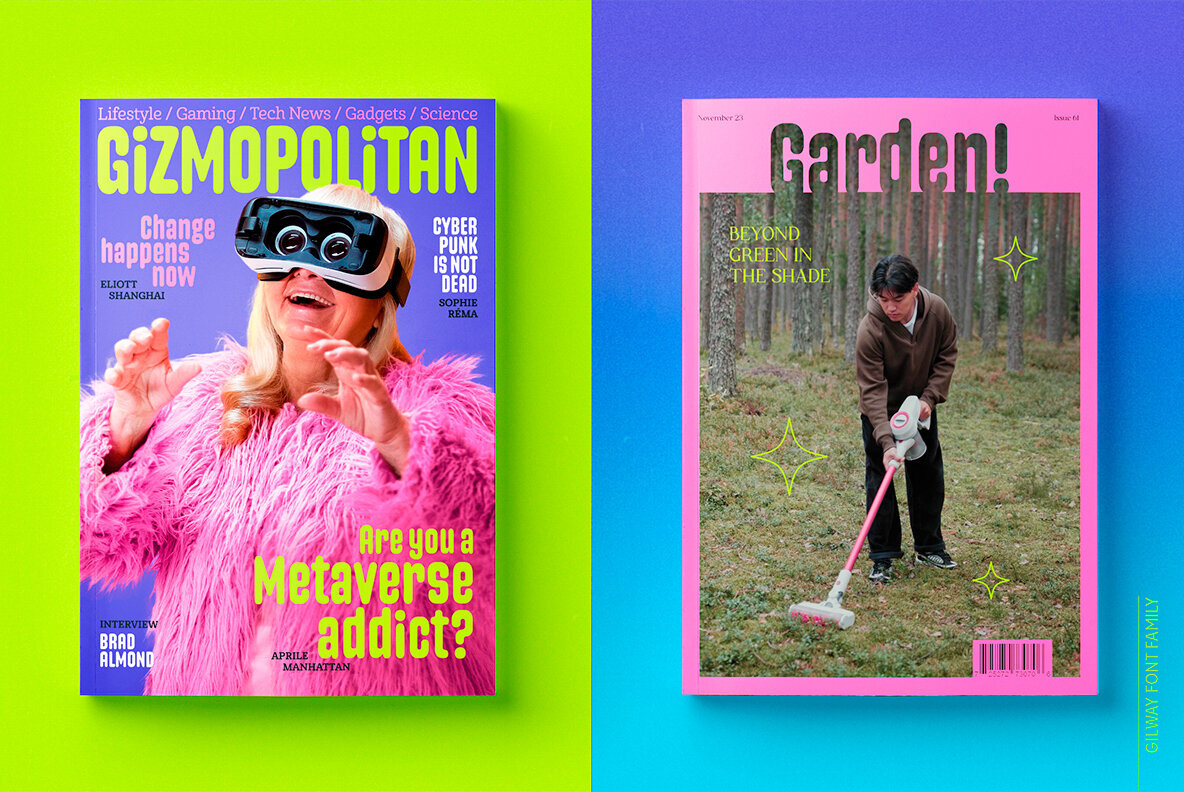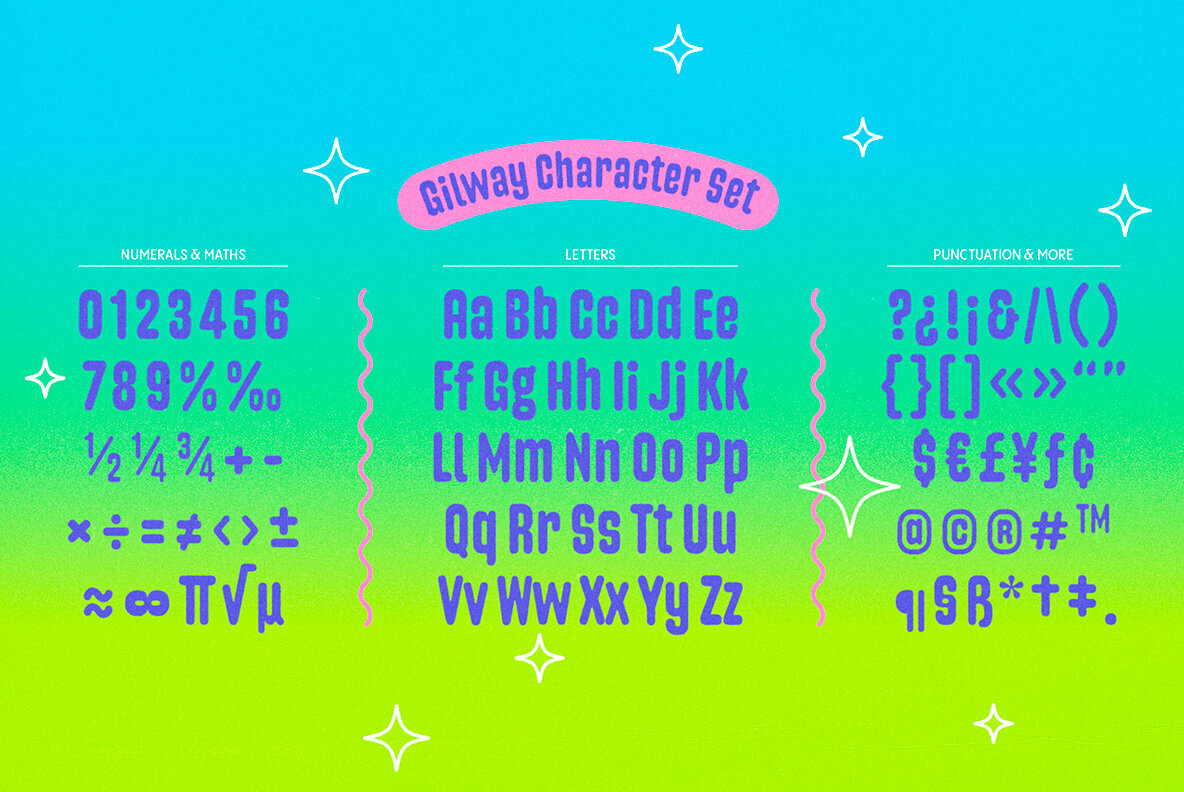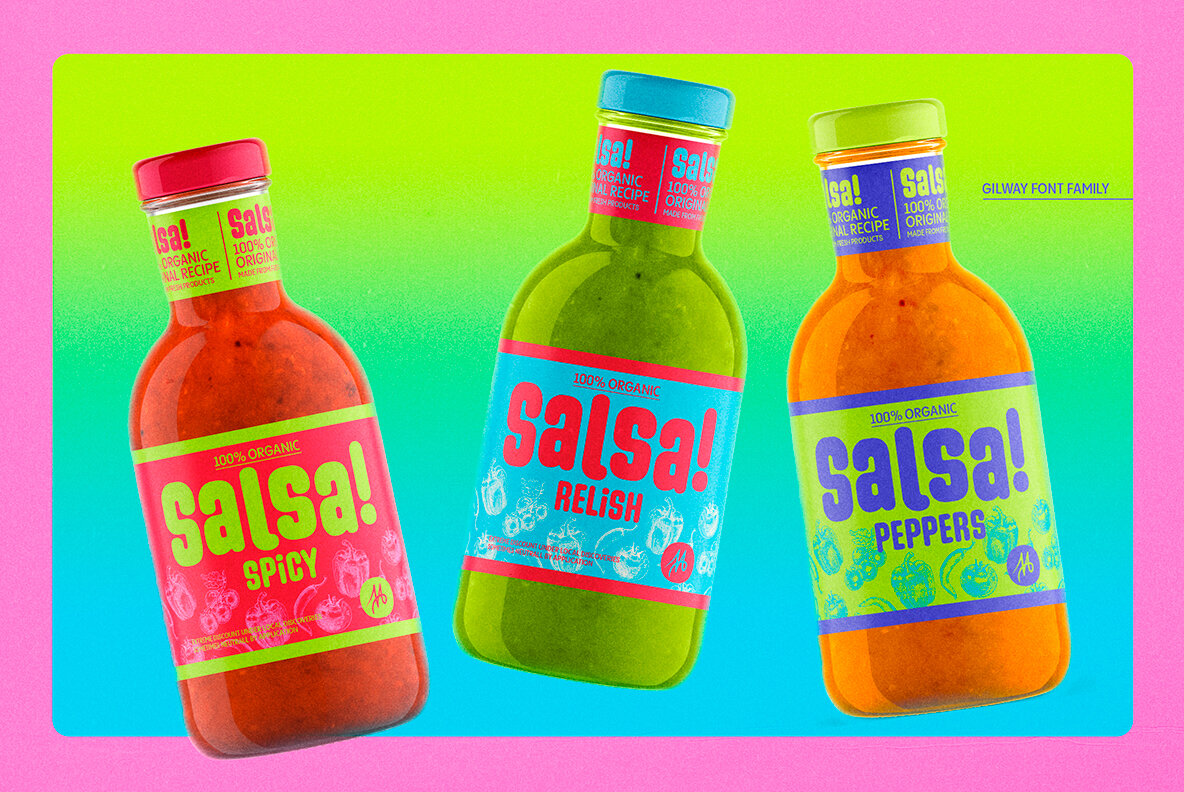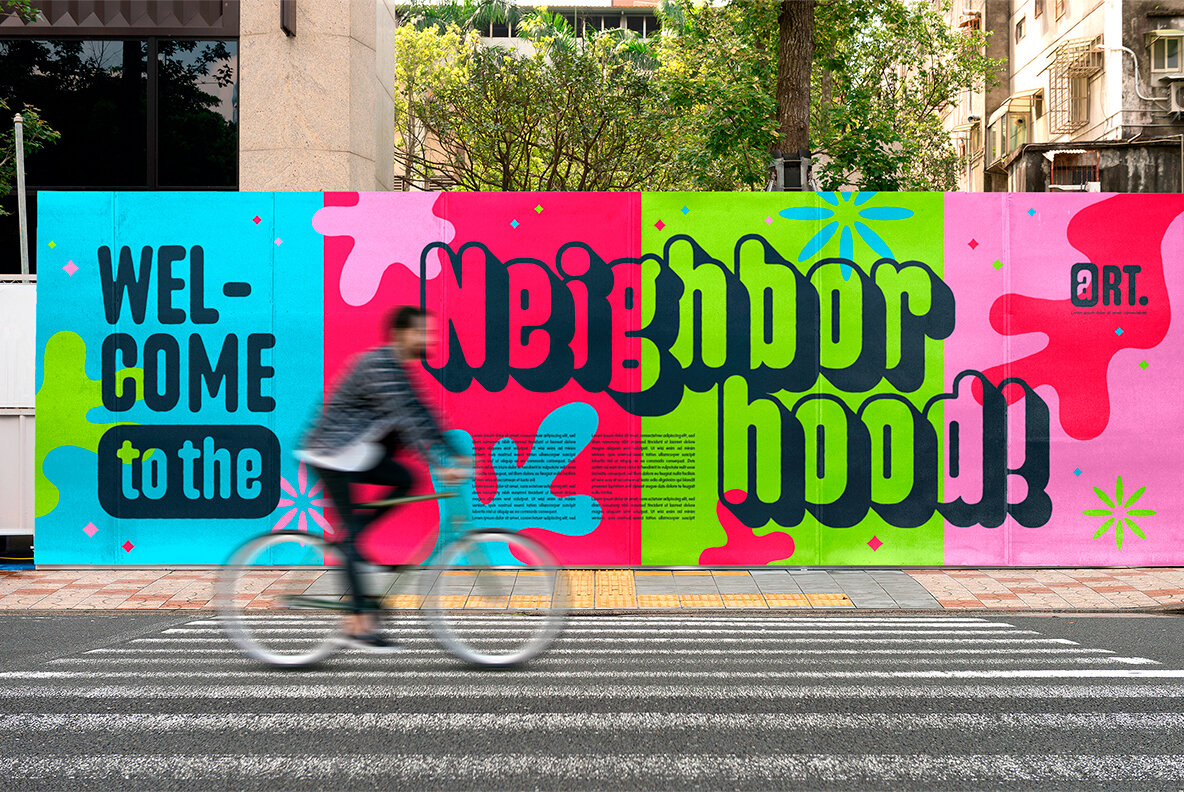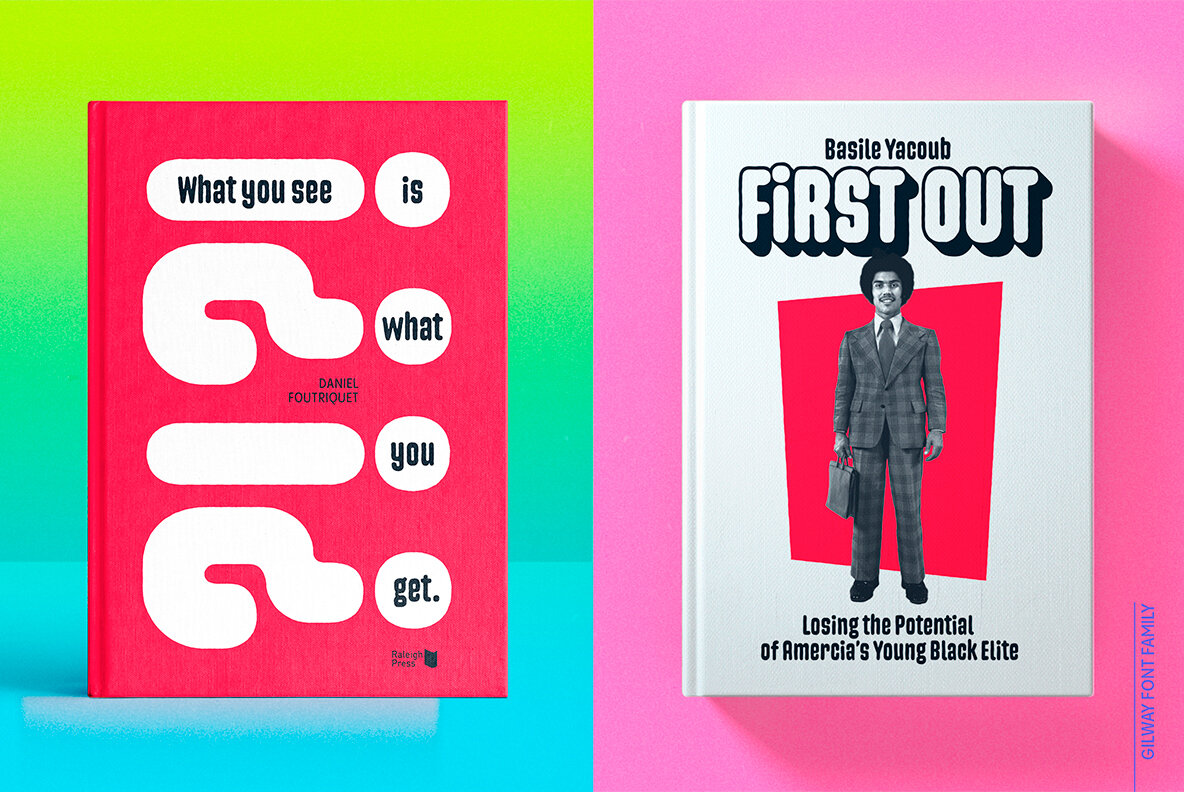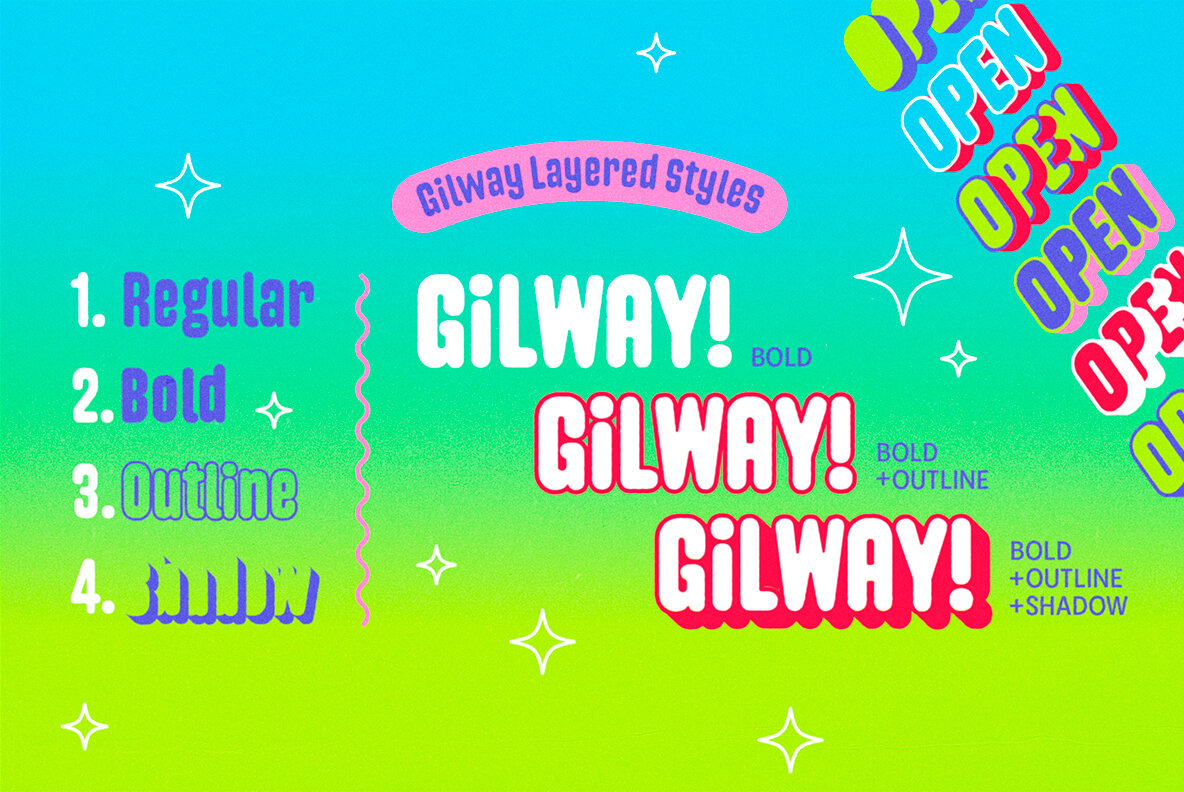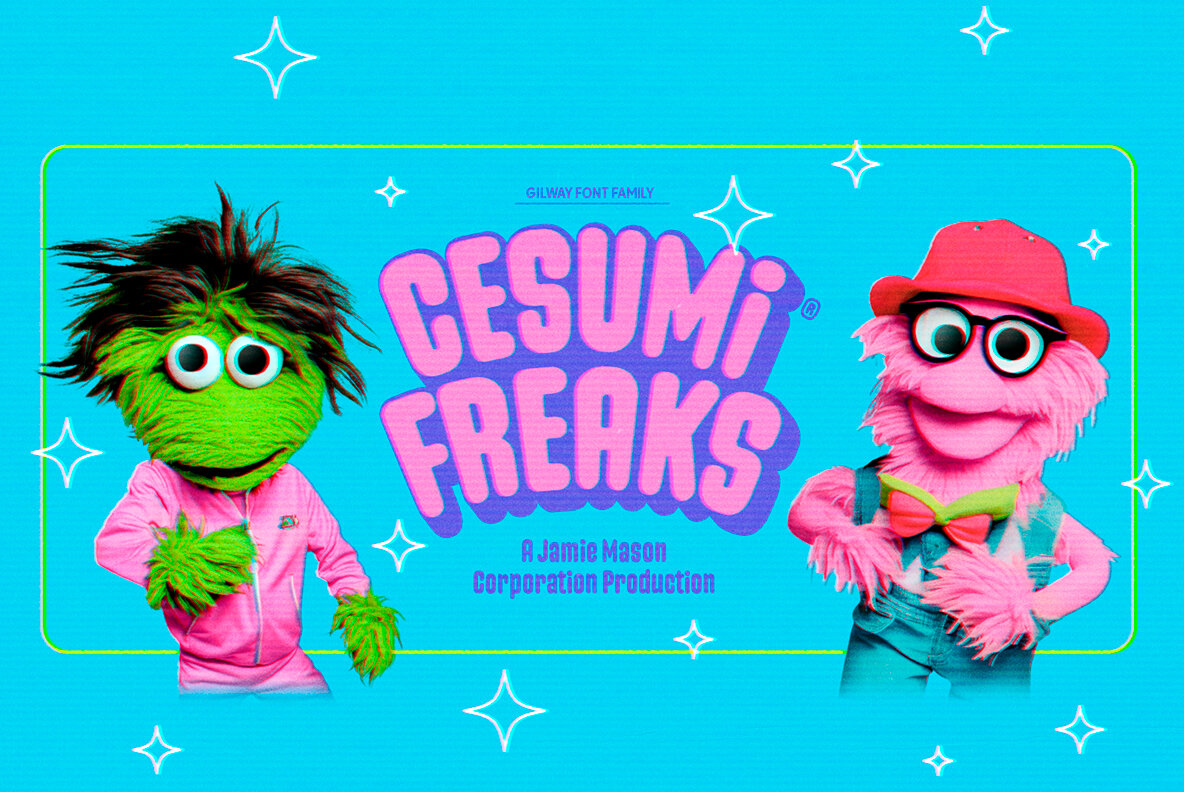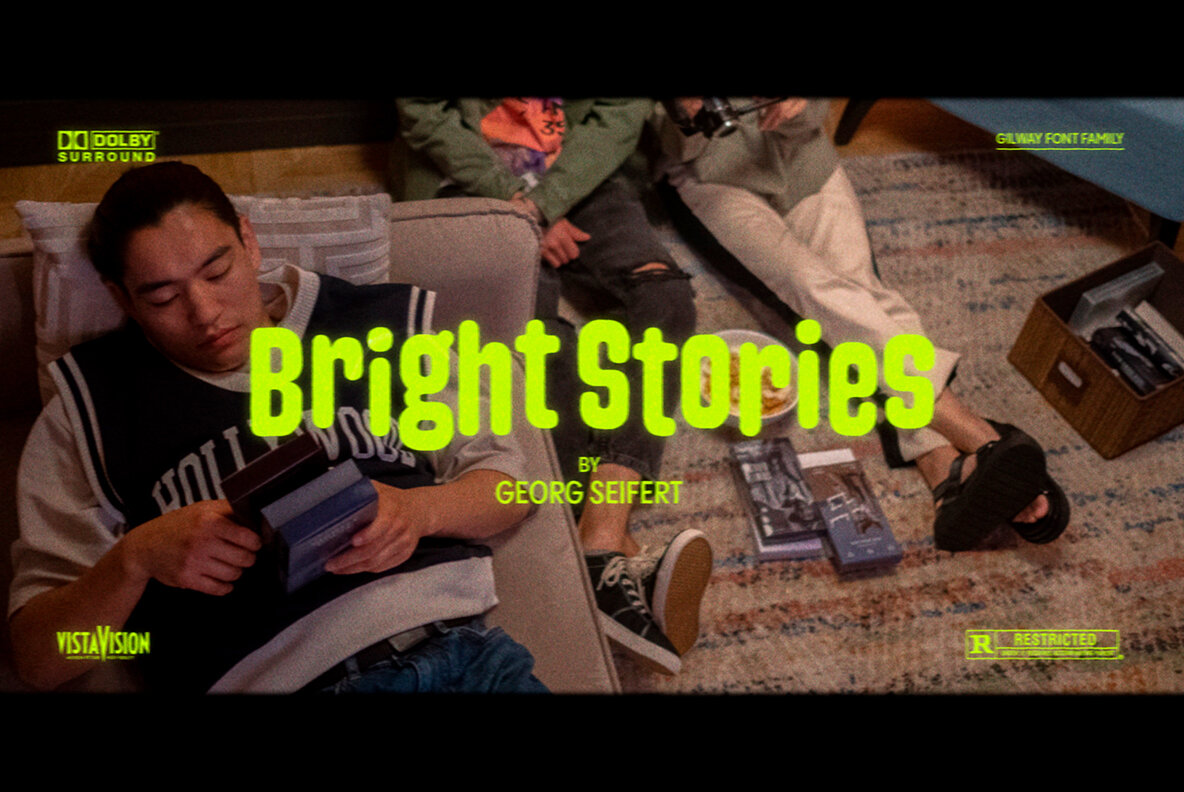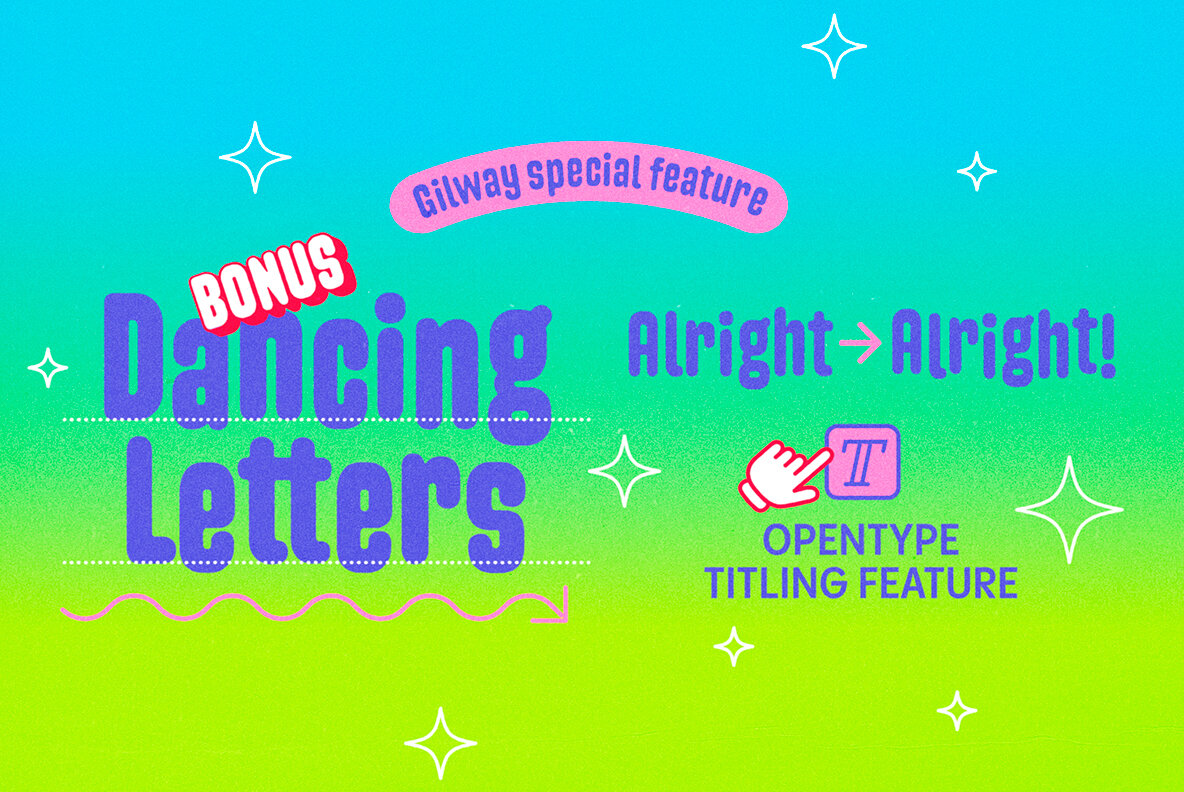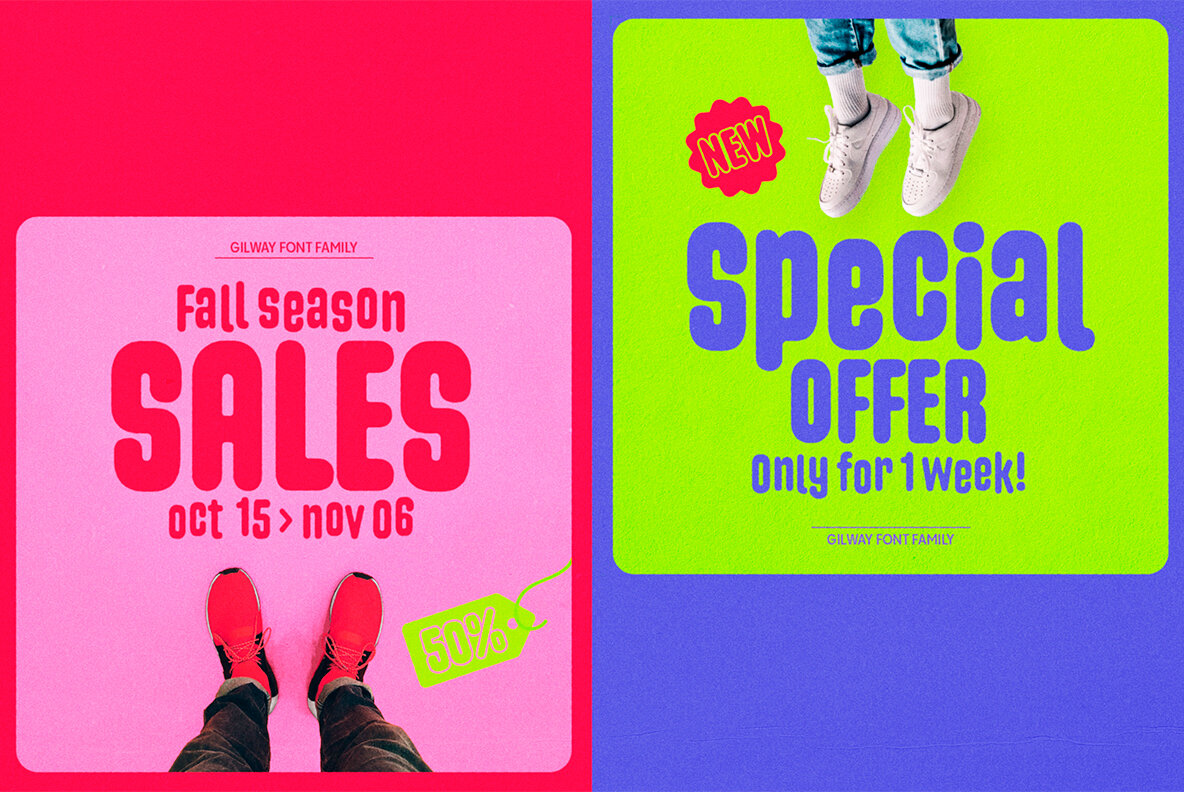
Gilway Font
Gilway is a playful, rounded display with a tremendous personality.
This versatile typeface is inspired by the earliest examples of rounded types from the 19th century, such as Caslon Rounded (1836) and Schmale Runde Grotesk (1885).
Gilway has a distinctive hand-lettered feel because of its subtle variances, which make it powerful and impactful yet incredibly friendly.
Layered options allow you to combine the various styles, and a unique Opentype feature makes your letters dance!
Gilway’s design is suited for a wide range of uses, including headlines, displays, packaging and logotypes.